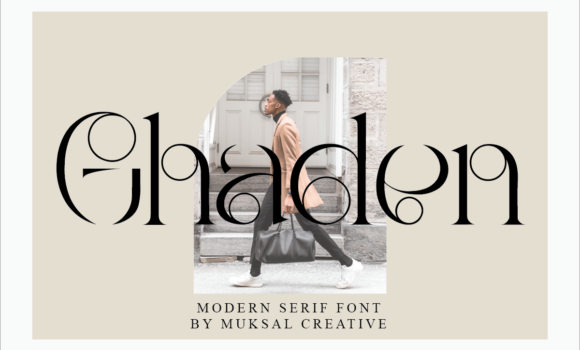
ghaden
Ghaden Font – Free Download Introduction to Ghaden Font Ghaden is a modern and stylish serif font that will impress you with its versatility. 📸 Preview Gallery 6 images 📌 Product Name Ghaden Font 👤 Author Muksal Creative 📂 Category